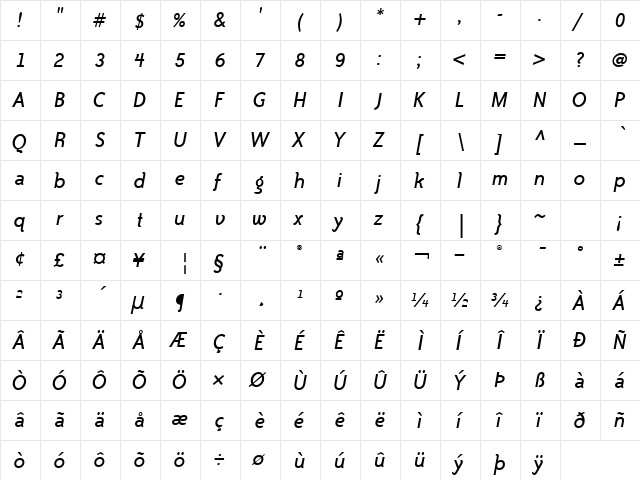
Bailey Sans ITC TT BookItalic
Design Context for Bailey Sans ITC TT Typeface
Bailey Sans ITC TT is a composed and adaptable typeface that performs quietly and consistently across a wide range of design contexts. Its italic angle brings a sense of urgency and motion to the letterforms.
Pro Tip: Use Bailey Sans ITC TT for emphasis, pull quotes, and subheadings where its slanted energy can add rhythm to the layout.